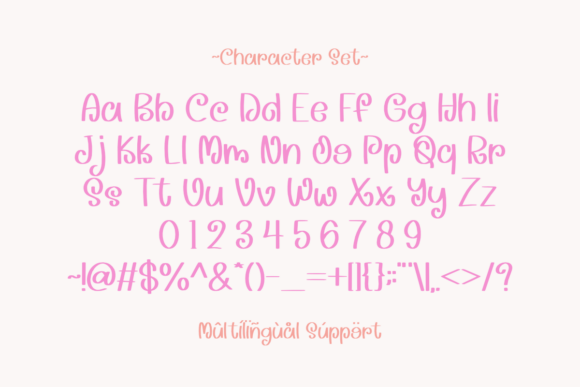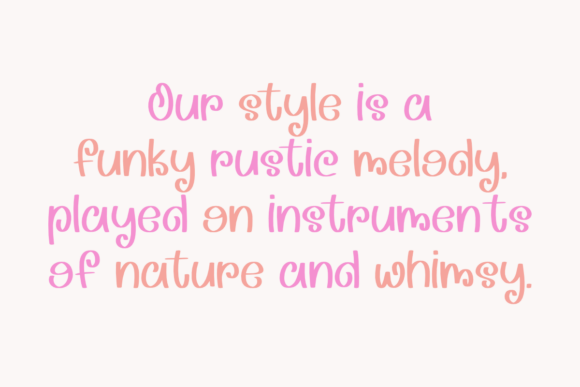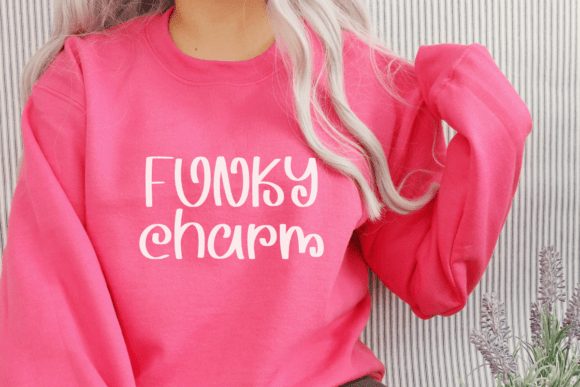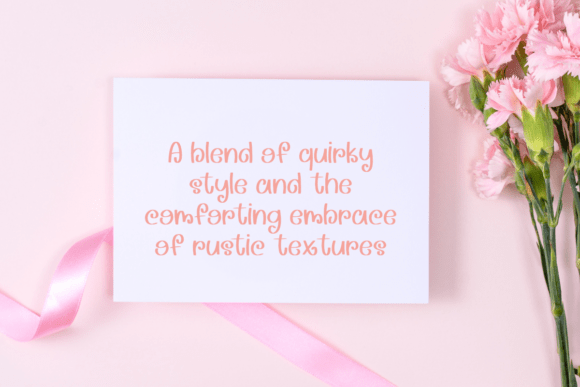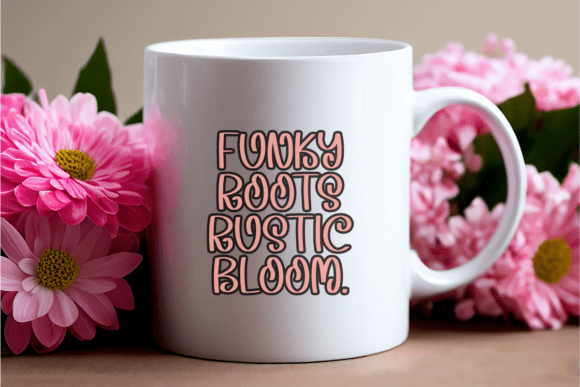
Funky Rustic Font: A Charming Handwritten Font for Creative Projects
Are you looking for a unique and charming font to add a personal touch to your creative projects? Look no further than the Funky Rustic Font! This natural handwritten font boasts an original, organic design that’s perfect for a wide range of applications, from KDP interiors to print-on-demand projects, and from planners to greeting cards.
What is Funky Rustic Font?
Funky Rustic is a carefully crafted handwritten font that exudes a sense of warmth and personality. Its natural, organic design makes it an ideal choice for designers and crafters who want to add a touch of whimsy and charm to their projects. Whether you’re creating a weekly planner, a to-do list, or a greeting card, this font is sure to make your project stand out.
Uses for Funky Rustic Font
The versatility of Funky Rustic Font is one of its most appealing features. Here are just a few examples of the many ways you can use this font:
- KDP interiors, notes, planners, journals, diaries, notebooks, printables, notepads, daily planners, trackers, schedules, organizers, calendars, templates, and stationery
- Weekly planners, to-do lists, print-on-demand projects, documents, presentations, worksheets, spiral notebooks, monthly planners, and notebook paper
- Invitations, birthday cards, celebrations, greeting cards, event banners, gift boxes, Cricut crafts, and silhouette projects
Why Choose Funky Rustic Font?
So why choose Funky Rustic Font over other fonts? Here are just a few reasons:
- Unique and charming design: Funky Rustic Font has a one-of-a-kind design that’s sure to make your project stand out.
- Highly versatile: This font can be used for a wide range of projects, from planners to greeting cards.
- Easy to read: Despite its handwritten nature, Funky Rustic Font is easy to read, making it perfect for projects that require a lot of text.
- Perfect for designers and crafters: Whether you’re a professional designer or a crafter, Funky Rustic Font is a great choice for anyone looking to add a personal touch to their projects.
Tips for Using Funky Rustic Font
Here are a few tips for getting the most out of Funky Rustic Font:
- Experiment with different sizes and colors: Funky Rustic Font looks great in a variety of sizes and colors, so don’t be afraid to experiment and find the combination that works best for your project.
- Pair with other fonts: Funky Rustic Font pairs well with other fonts, so consider using it in combination with a sans-serif font for a unique look.
- Use for headings and body text: Funky Rustic Font is easy to read, making it perfect for both headings and body text.
If you’re looking for a unique and charming font to add a personal touch to your creative projects, look no further than Funky Rustic Font. With its original, organic design and high level of versatility, this font is perfect for designers and crafters alike. Whether you’re creating a planner, a greeting card, or a print-on-demand project, Funky Rustic Font is sure to make your project stand out.